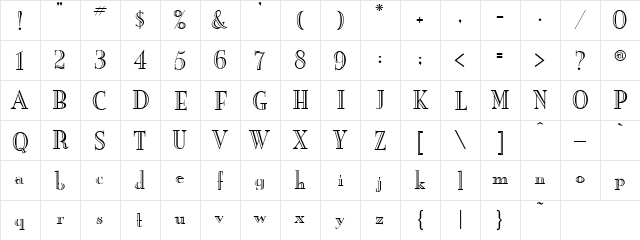
New Yorker Engraved Regular
Design Context for New Yorker Engraved Typeface
New Yorker Engraved is built around its visual character rather than neutral utility — its distinctive forms are designed to make an impression at display sizes.
Font Pairing: Pair with a clean neutral sans-serif for body copy to let New Yorker Engraved's character lead without overwhelming the composition.
Pro Tip: Use New Yorker Engraved exclusively at display sizes — it was designed to be seen, not read at length. Let a neutral companion handle body copy.